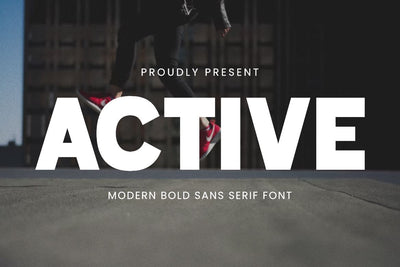
Active - Modern Sans Serif Font
Active is a modern [type classification: sans-serif / display / serif / vintage] font designed for strong visual impact. Whether you're working on branding, packaging, editorial layouts, or social media graphics, this font delivers clarity, style, and professional aesthetics.
Crafted with precision and clean shapes, Active is ideal for logos, posters, headlines, and other creative projects where typography takes center stage. It pairs well with minimalist or bold design directions.